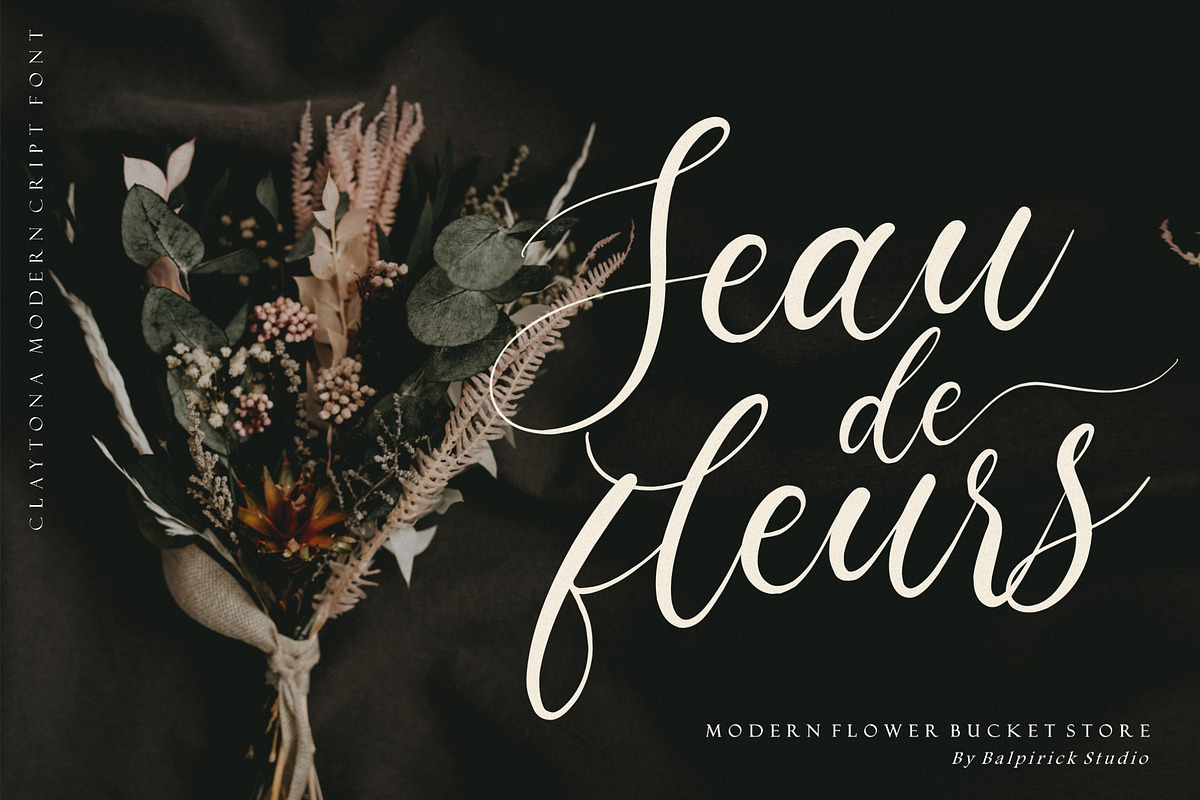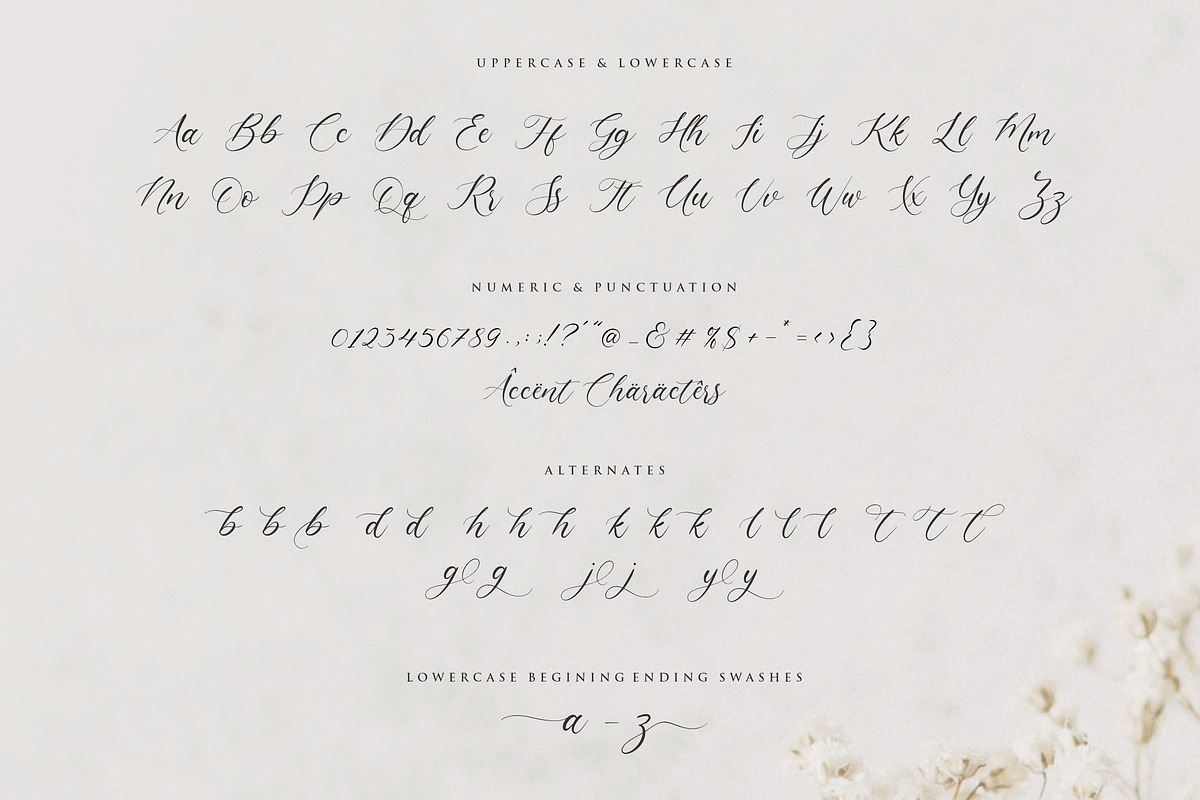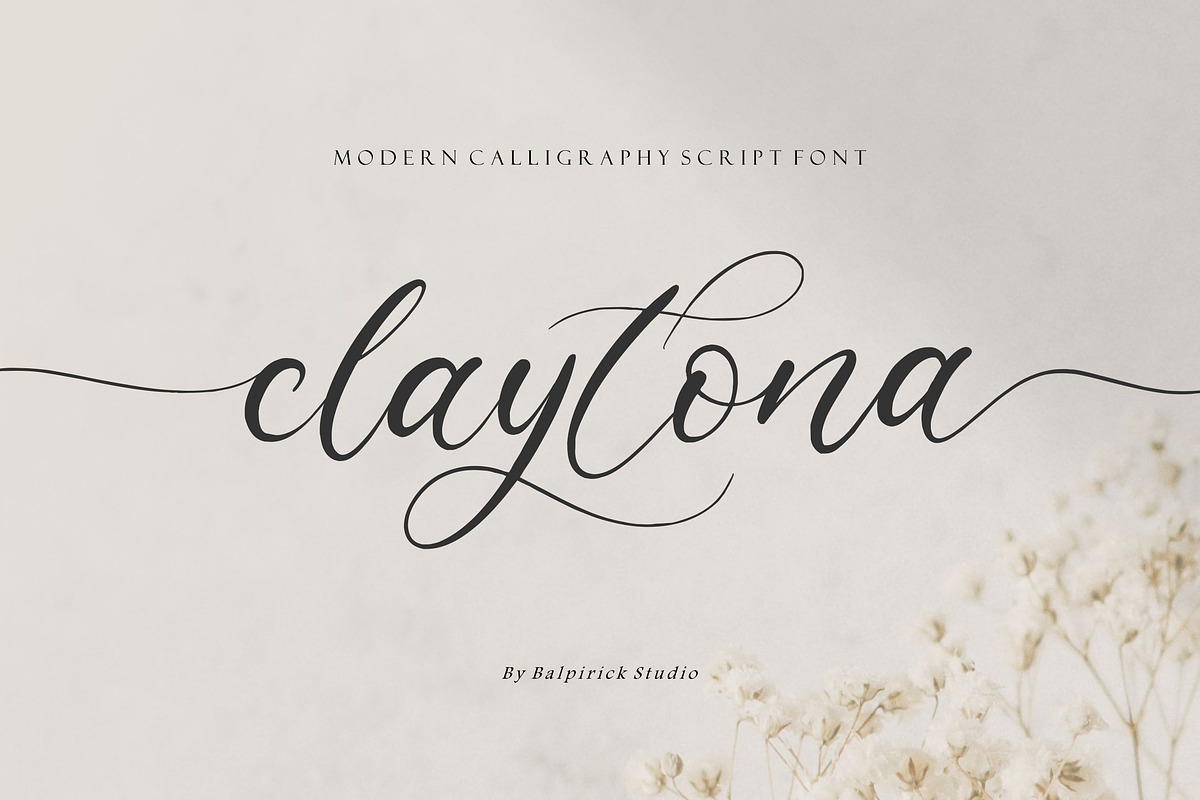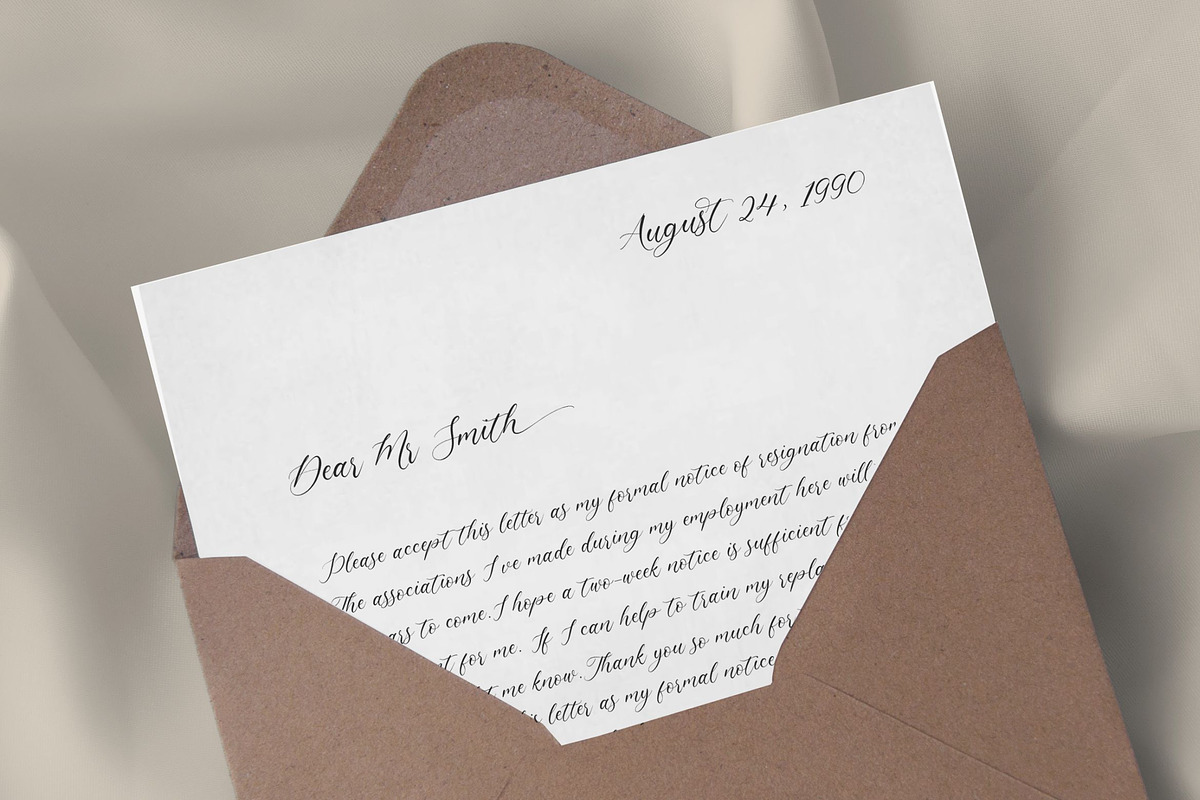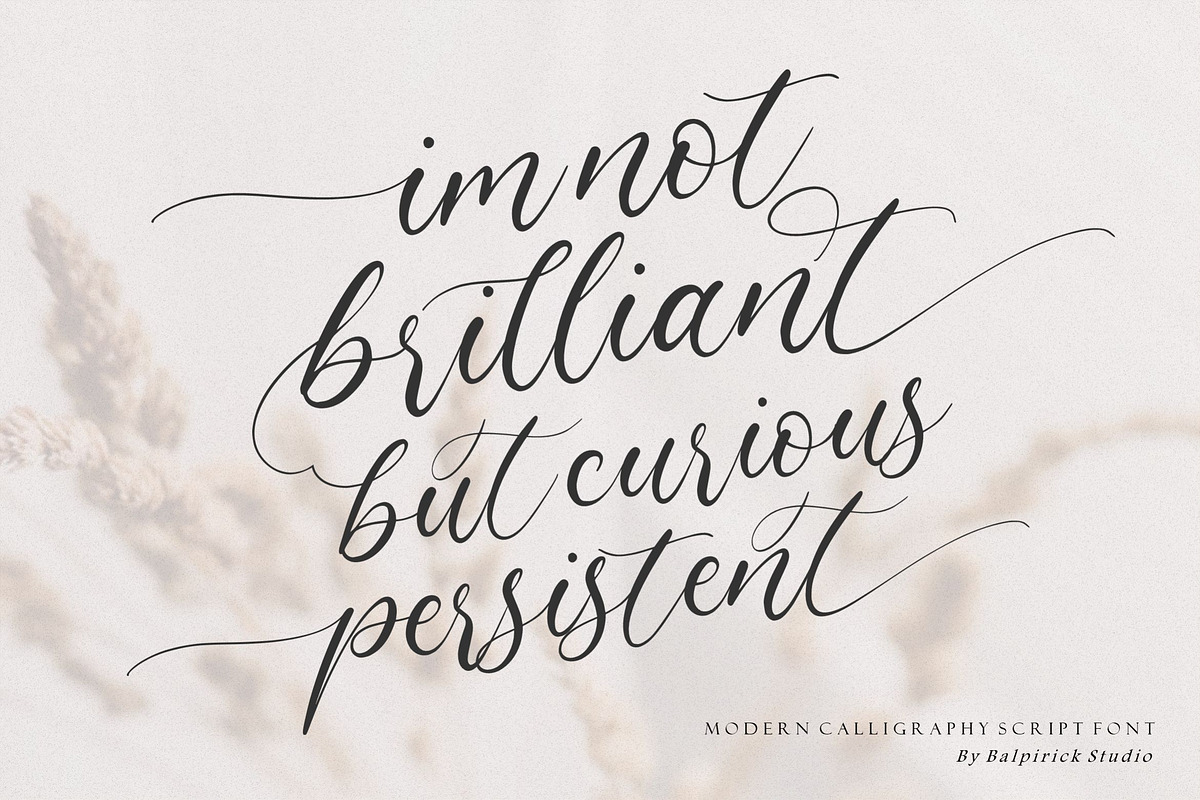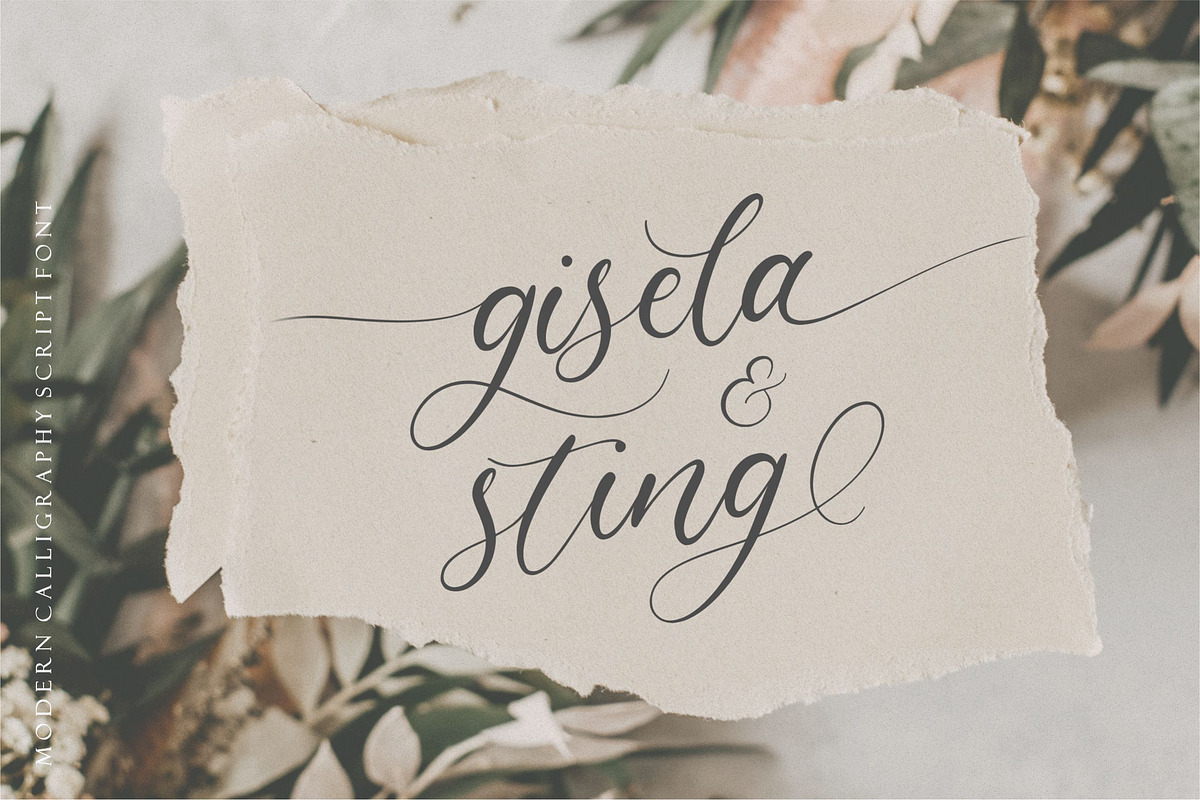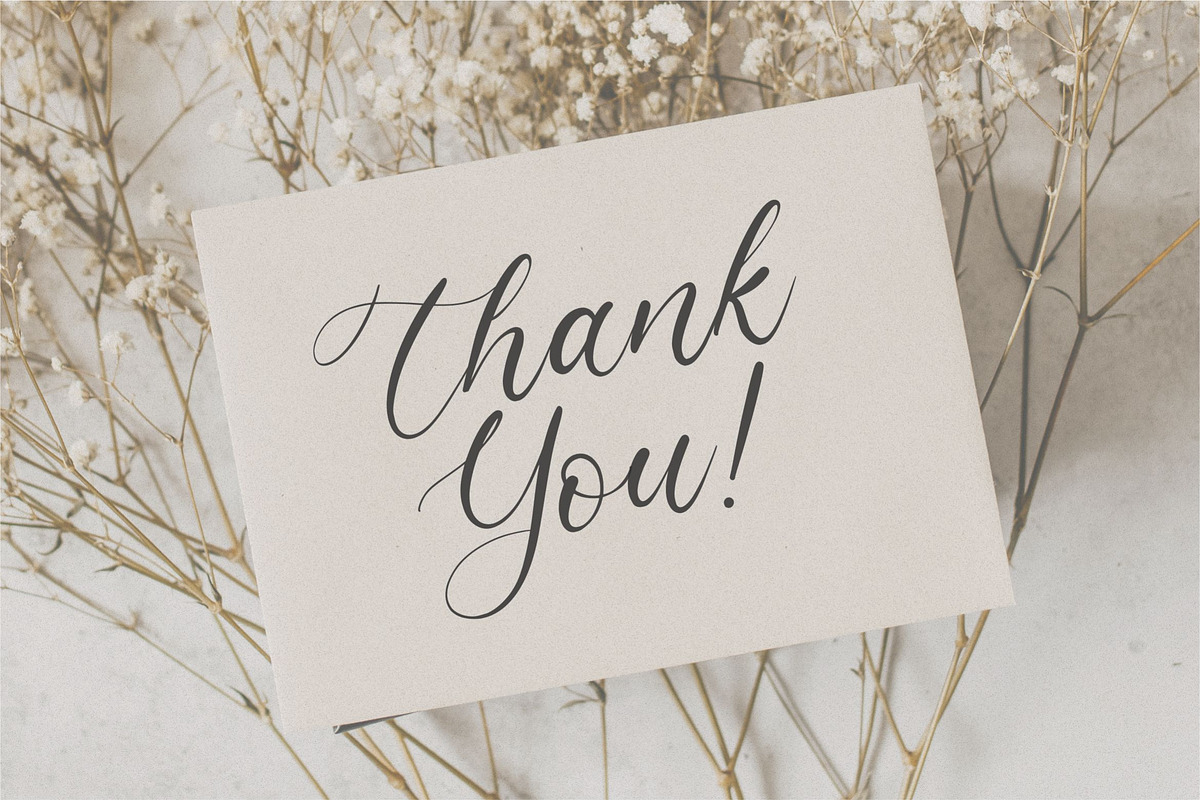
Claytona - Modern Calligraphy Script
Proudly Present, Claytona Font
Claytona is a fresh, unique script with a carefree attitude and a playful edge. Perfect for adding a quirky but casual feel, it comes with a large selection of natural-looking ligatures. This font is PUA encoded which means you can access all of the glyphs and swashes with ease!
- also multilingual support
- Lowercase Beginning & Ending Swash